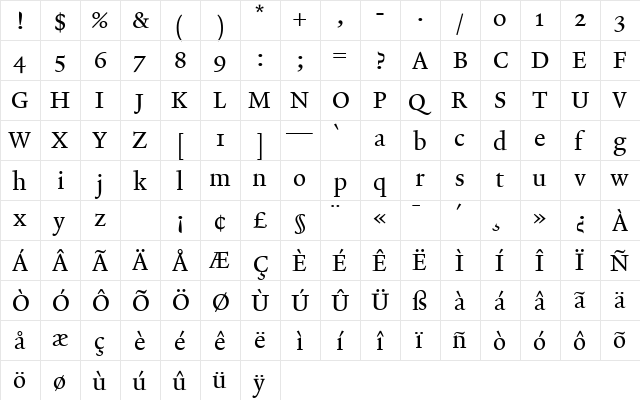
Lexicon No2 Roman A Txt Font Preview
Lexicon No2 Roman A Txt
Design Context for Lexicon No2 Typeface
Lexicon No2 takes a measured approach to typography — its balanced proportions and neutral character make it a reliable workhorse for both digital and print work.